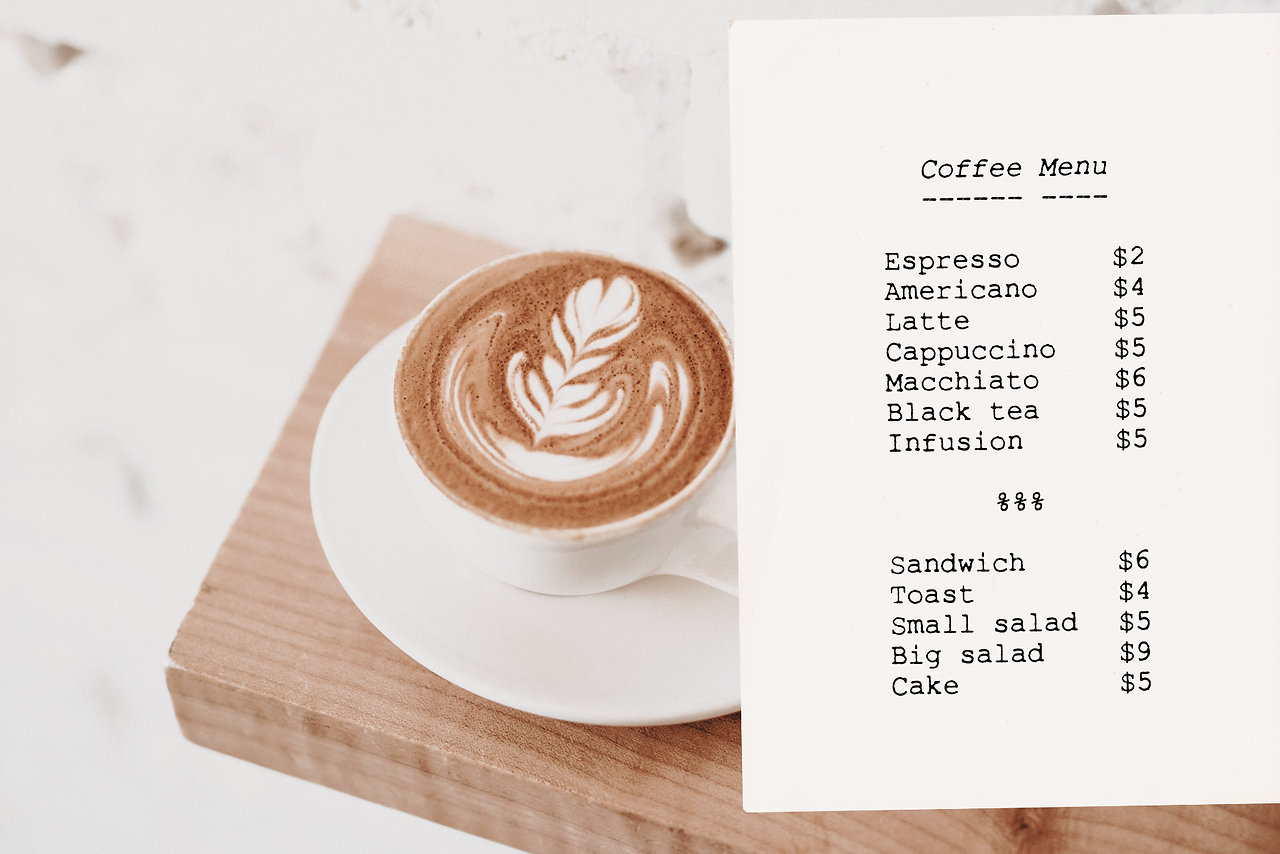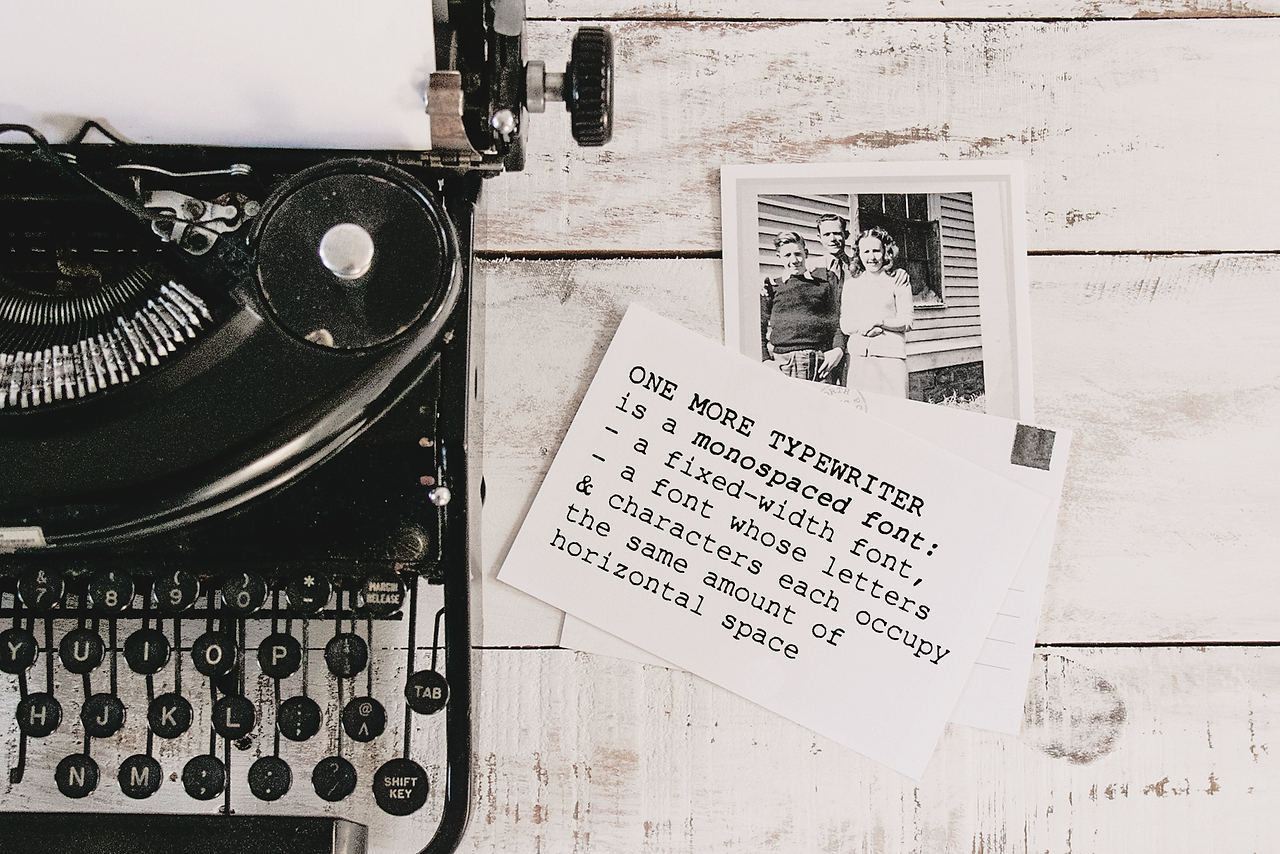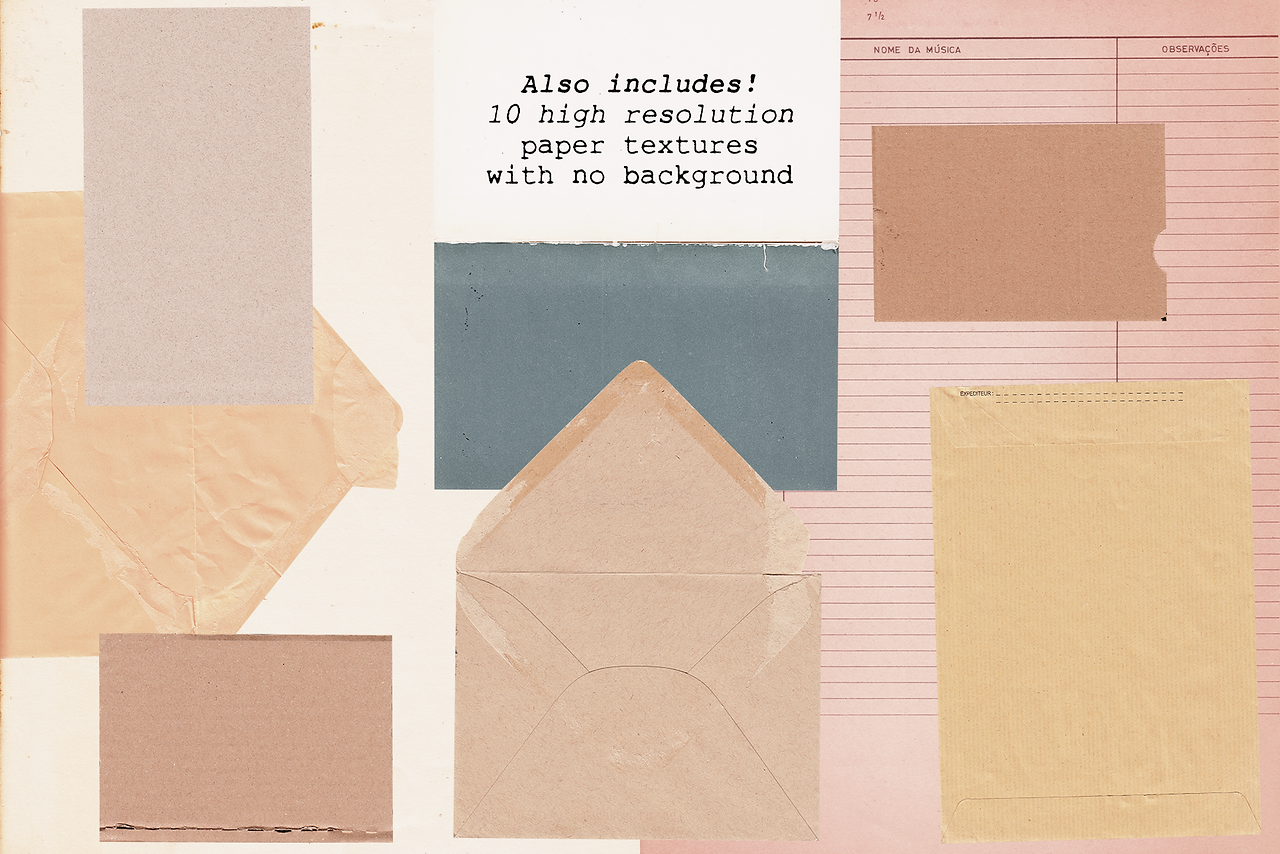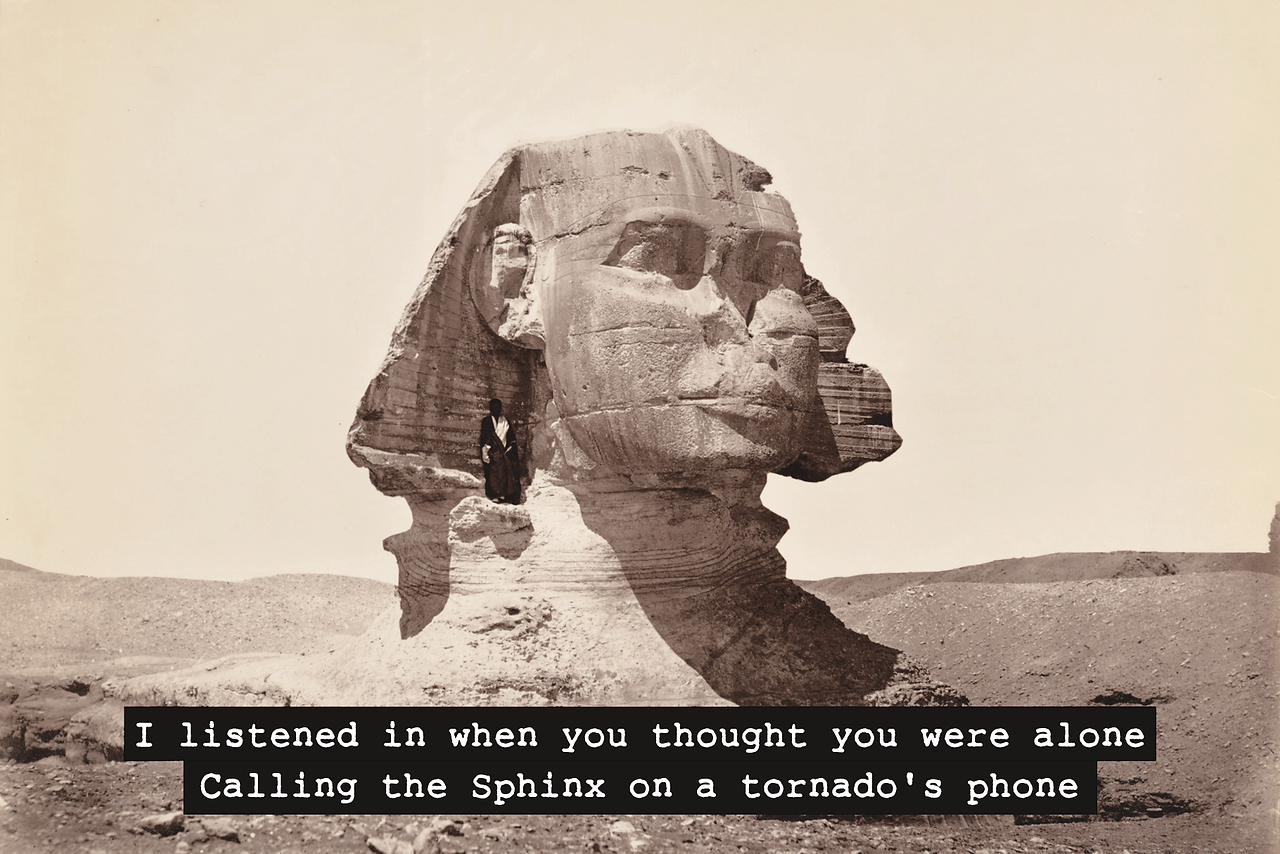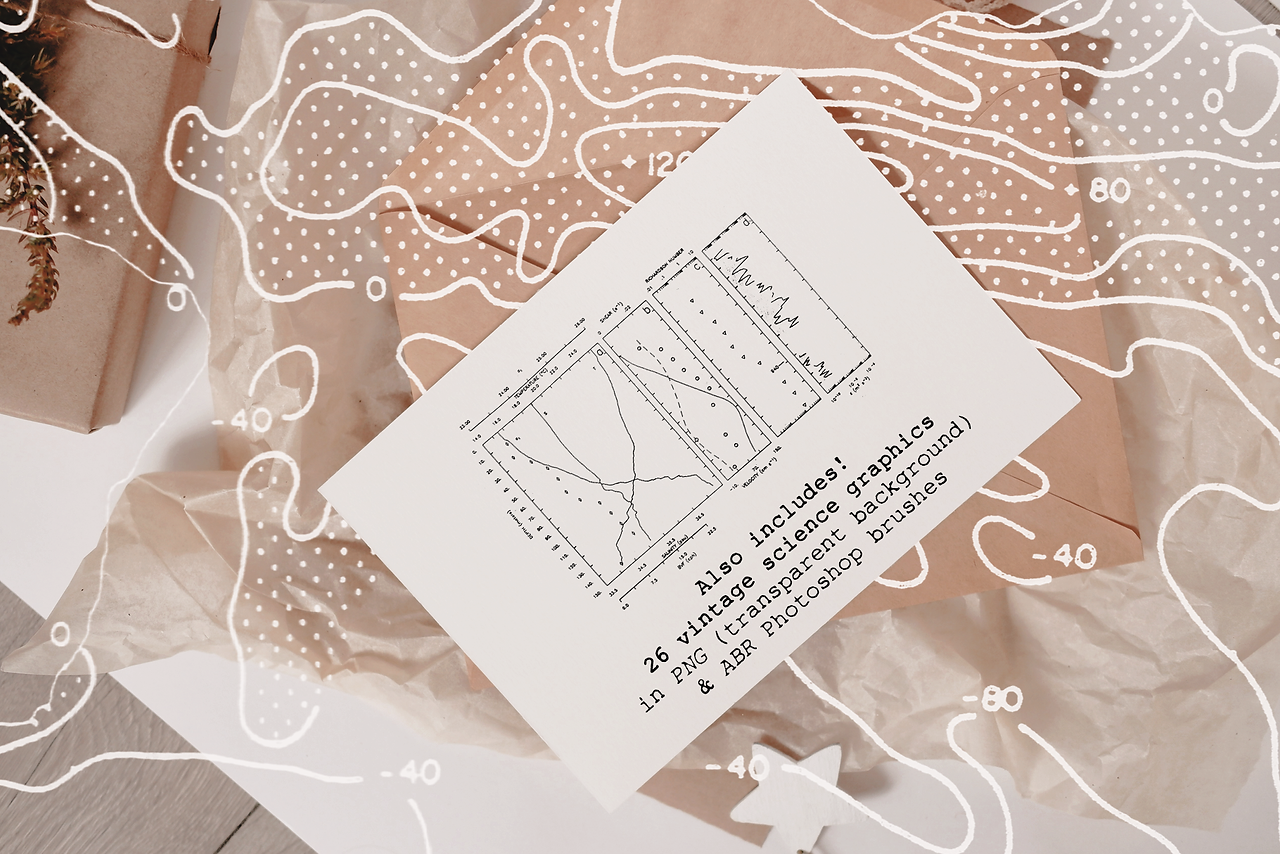
New! One More Typewriter Font
Hope you are well! It's no secret that typewriter fonts are my favorite fonts to make and use (I am a little obsessed with them), and today I bring you a new one that I may have decided to make because I really liked the uppercase "a" (see for yourself, it's so pretty).
One More Typewriter font is a monospaced typewriter font in two styles: Regular and Italic, and two weights: Regular and Bold. This makes it versatile and ready to use in modern and vintage designs alike. This font is also very legible at a wide range of sizes and looks great in both long or short texts, in digital collages, branding and packaging, social media posts, logotypes, etc.
One More Typewriter font family with 4 individual fonts: regular, italic, bold and bolid italic, with a soft realistic texture.